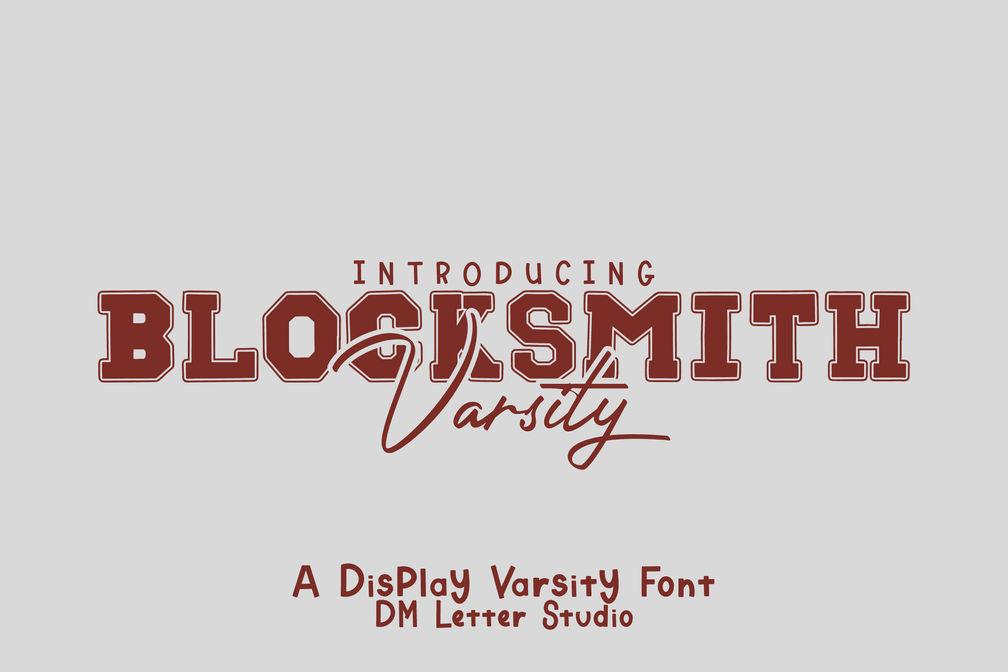
Blocksmith Varsity
Blocksmith Varsity – Bold Athletic Varsity Font
Blocksmith Varsity is a powerhouse display font built for sports, spirit, and standout designs. With strong block shapes, sharp serifs, and a classic varsity aesthetic, this all-caps font captures the look of team jerseys, college banners, and retro athletic graphics. Whether you’re creating logos, merchandise, or school apparel, Blocksmith Varsity brings tradition and energy into every character.
• Traditional Varsity Style: Inspired by vintage school lettering and championship graphics.
• Perfect for Sports & School Projects: Ideal for team logos, spirit gear, stadium signage, and campus events.
• Bold and Structured: Wide letterforms with strong verticals and tight spacing for maximum impact.
• Complete Character Set: A–Z uppercase letters, numbers, punctuation, and multilingual accents.